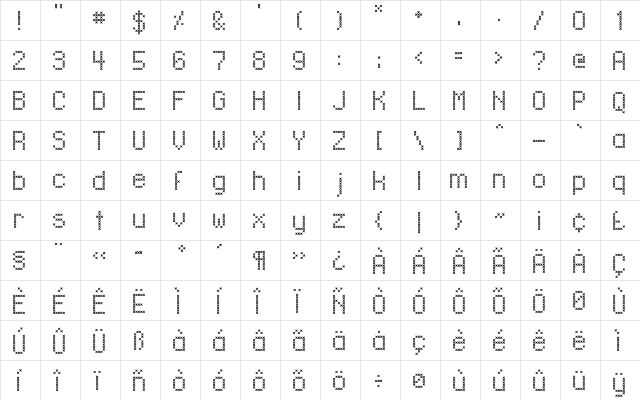
LL_XMas Regular
Design Context for LL_XMas Typeface
LL_XMas is a composed and adaptable typeface that performs quietly and consistently across a wide range of design contexts.